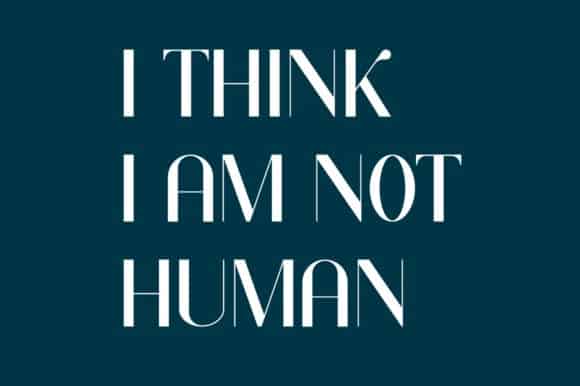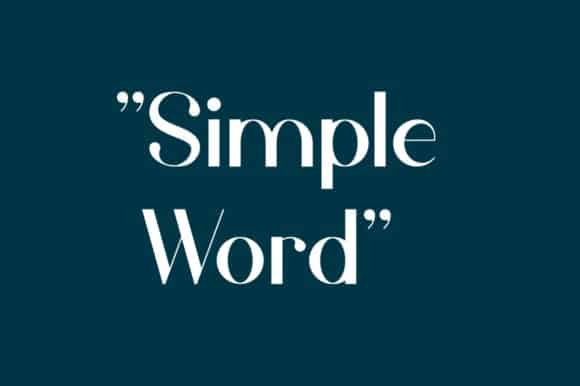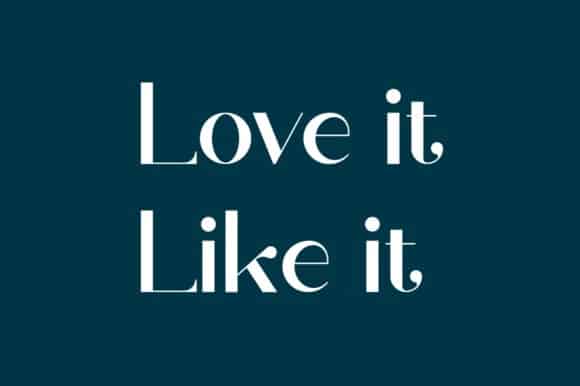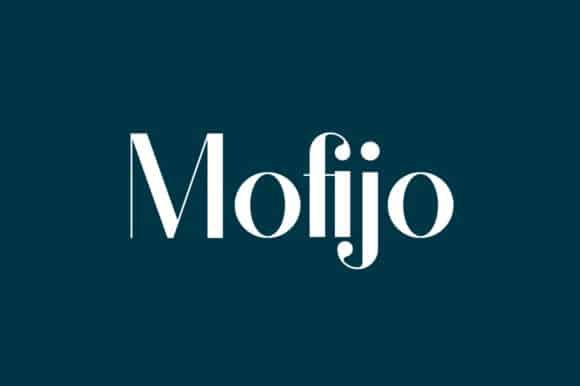
Mofijo Sans Serif Font
Mofijo Sans Serif Font is a fresh new geometric typeface with a modern vibe, perfect geometry shape, same width line all around, build to be versatile, clean and bold.This font is a typeface from the designer AmruID. It’s a distinct sans serif font. Masterfully designed to become a true favorite, this font has the potential to bring each of your creative ideas to the highest level!. Perfect for any project, logo, headline, and many others.